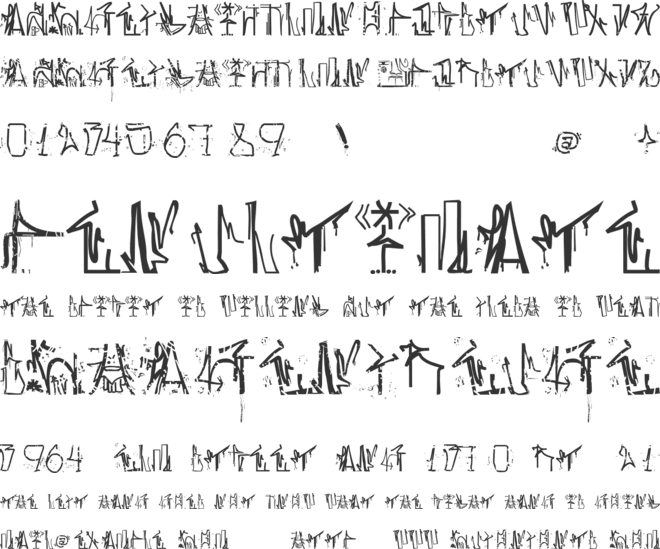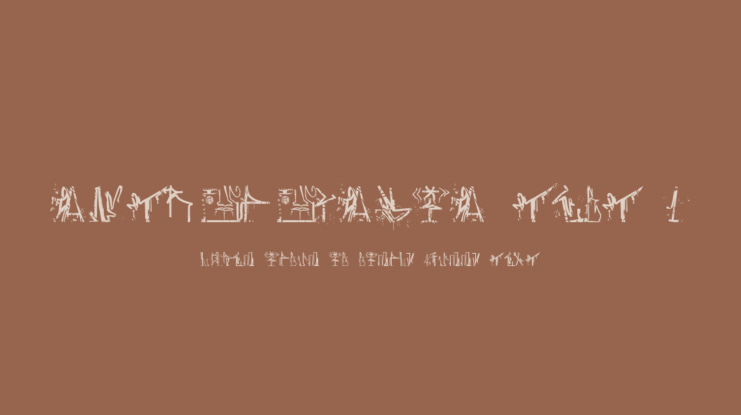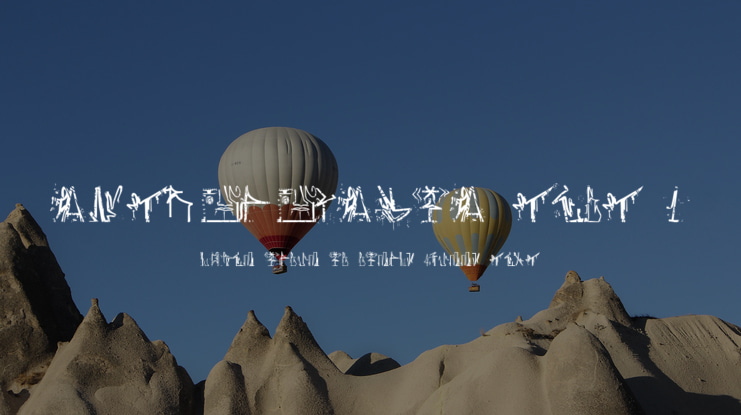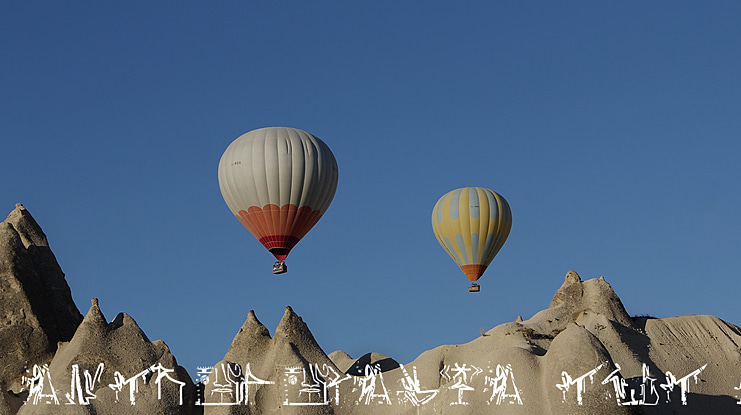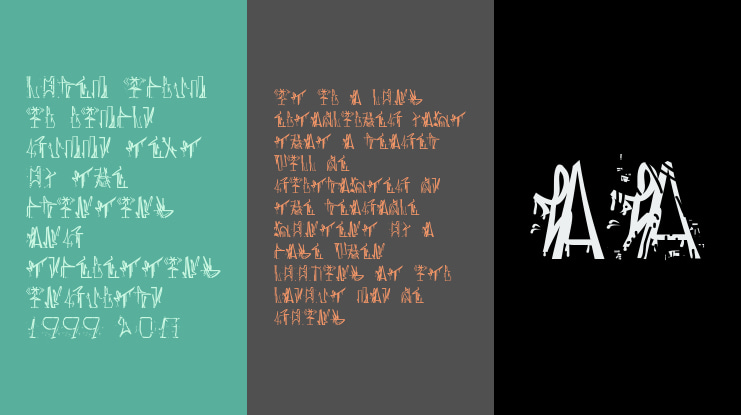
ANTROPOFAGIA TEST 1 Font
Antropofagia graffiti is a font that is a Brazilian graffiti, this is a style of many letters that I'm working, ways that Acadia street writers do and create is very impressive each group has a name and a different letter and label. how much more recognized in the street